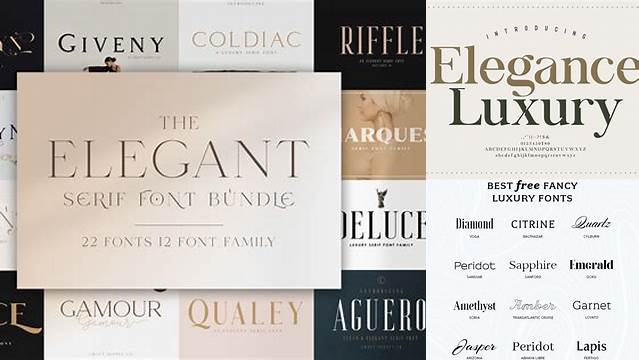
Elegant Fonts In Word: Luxury Typography Guide
Hey guys! Ever wanted to make your Word documents look super classy and sophisticated? You know, the kind that screams luxury? Well, you're in the right place! We're diving deep into the world of luxury fonts in Word, exploring everything from classic serifs to modern sans-serifs that can seriously elevate your text. Think about it – the right font can transform a simple document into a work of art. Let’s get started and make your words shine with elegance and style!
1. Understanding Luxury Typography in Word
So, what exactly is luxury typography in the context of Word? It's all about choosing fonts that exude sophistication, elegance, and a certain je ne sais quoi. These aren't your run-of-the-mill, everyday fonts. We're talking about typefaces that have been carefully crafted, with attention to detail in every curve and stroke. Think fonts that you might see in high-end magazines, on designer websites, or even in the branding of luxury goods. Using luxury typography in Word isn't just about making your document look pretty; it's about conveying a sense of quality and professionalism. It can make your presentations, reports, and even simple letters stand out and leave a lasting impression. We'll be looking at various font styles that fall under this category, and how you can effectively use them to create the desired impact. Remember, the goal is to choose fonts that not only look beautiful but also enhance the readability and overall message of your content.
2. Classic Serif Fonts for an Elegant Look
When you think of luxury, what comes to mind? Often, it's timeless elegance, and that’s exactly what classic serif fonts bring to the table. Fonts like Times New Roman, Garamond, and Georgia are the workhorses of the serif world, but they also have a refined quality that makes them perfect for conveying sophistication. Serif fonts are characterized by the small strokes or “feet” at the end of each character, which gives them a traditional and formal appearance. Using these fonts in Word can instantly elevate the look of your documents, making them appear more polished and professional. For instance, Garamond, with its graceful curves and delicate serifs, is a fantastic choice for body text in reports or formal letters. Times New Roman, while widely used, remains a solid option for its readability and classic appeal. Georgia, designed specifically for screen reading, is another excellent choice for digital documents. The key is to use these fonts thoughtfully, considering the overall tone and purpose of your document. They’re not just fonts; they're a statement of timeless luxury.
3. Modern Sans-Serif Fonts for a Contemporary Feel
If your idea of luxury leans more towards sleek and contemporary, then sans-serif fonts are your best friend. Unlike serif fonts, sans-serif fonts lack those little “feet,” giving them a cleaner, more minimalist appearance. Fonts like Helvetica, Arial, and Calibri are ubiquitous, but there are plenty of other fantastic sans-serif options that can bring a modern touch to your Word documents. Think about fonts like Futura, with its geometric shapes, or Open Sans, known for its readability and versatility. These fonts are perfect for creating a sense of sophistication without feeling stuffy or old-fashioned. Using sans-serif fonts in headings or subheadings can also create a striking contrast with serif body text, adding visual interest to your document. Remember, the goal is to choose a font that reflects your personal style and the message you want to convey. Modern sans-serif fonts can be incredibly effective in creating a sense of understated luxury and professionalism.
4. Script and Handwritten Fonts for a Personal Touch
Sometimes, luxury is about the personal touch, the feeling of something being handcrafted and unique. Script and handwritten fonts can bring that sense of warmth and personality to your Word documents. Think about using these fonts for invitations, thank-you notes, or even to add a special flourish to your business communications. Fonts like Brush Script, Edwardian Script, and even more modern calligraphy-inspired fonts can add a touch of elegance and charm. However, it’s crucial to use these fonts sparingly. Overusing script fonts can make your document look cluttered and difficult to read. The key is to use them strategically, perhaps for headings or to highlight specific phrases. When used correctly, script and handwritten fonts can convey a sense of luxury that is both sophisticated and inviting. It's like adding a handwritten signature to a masterpiece – a touch of personal flair that elevates the whole piece.
5. Display Fonts: Making a Statement in Word
Want to make a bold statement? Display fonts are designed to do just that. These fonts are all about grabbing attention and making an impact. They often feature unique shapes, intricate details, and a sense of drama. While you might not want to use them for large blocks of text (readability is key, guys!), display fonts can be fantastic for headings, titles, or even logos within your Word documents. Think about fonts with strong, geometric shapes or elegant, flowing lines. These fonts can add a touch of luxury and sophistication to your work, but it’s important to use them judiciously. Too much of a good thing can quickly become overwhelming. The goal is to create a focal point, to draw the eye and convey a specific mood or message. When used strategically, display fonts can be a powerful tool in your luxury typography toolkit.
6. Pairing Fonts Like a Pro in Word
Okay, so you’ve got a bunch of awesome fonts, but how do you put them together in a way that looks cohesive and stylish? This is where font pairing comes in. Pairing fonts effectively can make your Word documents look professionally designed and incredibly polished. The basic idea is to combine fonts that complement each other, creating visual interest without clashing. A classic combination is pairing a serif font for body text with a sans-serif font for headings. For instance, you might use Garamond for the main text and Helvetica for the headings. This creates a nice contrast while maintaining readability. When it comes to luxury typography, think about pairing a more ornate font with a simpler one. For example, you could use a script font for a title and a clean sans-serif for the body. The key is balance. You want to create a visual hierarchy that guides the reader through your document. A well-paired font combination can truly elevate the luxury feel of your work.
7. Font Size and Spacing for Readability
It doesn’t matter how luxurious your font is if your document is a pain to read! Font size and spacing are crucial for ensuring readability. Choosing the right font size depends on the font itself, as well as the purpose of your document. Generally, for body text, a font size between 10 and 12 points works well. For headings, you’ll want to go larger, perhaps 14 to 18 points for main headings and slightly smaller for subheadings. But size isn’t everything. Line spacing, also known as leading, is just as important. Too little space between lines can make your text look cramped, while too much can make it feel disjointed. A good rule of thumb is to use a line spacing of 1.2 to 1.5 times the font size. Character spacing, or tracking, also plays a role. Adjusting the spacing between letters can help improve readability, especially for display fonts. Remember, luxury typography is about more than just aesthetics; it’s about creating a pleasant reading experience.
8. Kerning and Tracking: Fine-Tuning Your Typography
Ready to get super detailed? Kerning and tracking are the subtle art of adjusting the spacing between letters to create a more visually harmonious text. Kerning refers to the spacing between specific pairs of letters, while tracking adjusts the spacing uniformly across a range of characters. These might seem like tiny adjustments, but they can make a big difference in the overall look and feel of your luxury typography. For example, the space between an uppercase “A” and a lowercase “v” often needs to be adjusted to prevent them from looking too far apart. Similarly, tracking can be used to tighten or loosen the spacing in headings to create a more balanced appearance. While Word has some built-in kerning features, you might need to manually adjust the spacing for certain fonts or specific words to achieve the perfect look. It’s all about attention to detail. These small tweaks can elevate your typography from good to luxurious, making your documents look professionally crafted.
9. Using Bold and Italics Effectively
Bold and italics are your trusty sidekicks when it comes to emphasizing specific words or phrases in your Word documents. But like any powerful tool, they should be used with care. Overusing bold and italics can make your text look cluttered and overwhelming. The key is to use them strategically to highlight key information or add emphasis. For instance, you might use bold to highlight keywords or headings, and italics to emphasize quotes or foreign words. When it comes to luxury typography, restraint is often the best approach. A subtle use of bold and italics can add a touch of sophistication, while overdoing it can make your document look amateurish. Think about using bold and italics to create a visual hierarchy within your text, guiding the reader's eye to the most important elements. When used thoughtfully, bold and italics can be powerful tools for enhancing the luxury feel of your typography.
28. Exporting Word Documents with Fonts Intact
Ensuring that your luxury typography looks its best when you share your Word documents is essential. Exporting your documents with the fonts embedded can prevent font substitution and maintain your intended design. When you embed fonts in a Word document, the font files are included in the document itself. This ensures that the recipient will see the fonts you used, even if they don't have those fonts installed on their computer. To embed fonts in Word, go to File > Options > Save and check the box that says